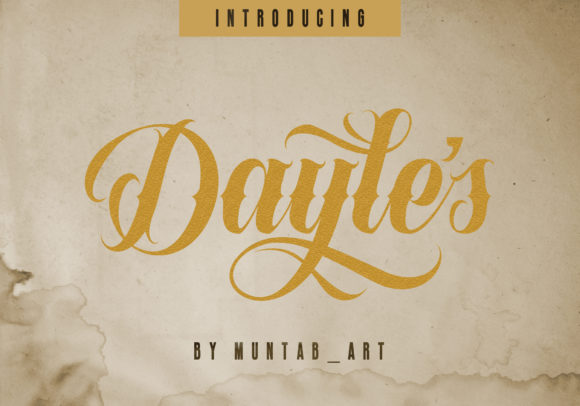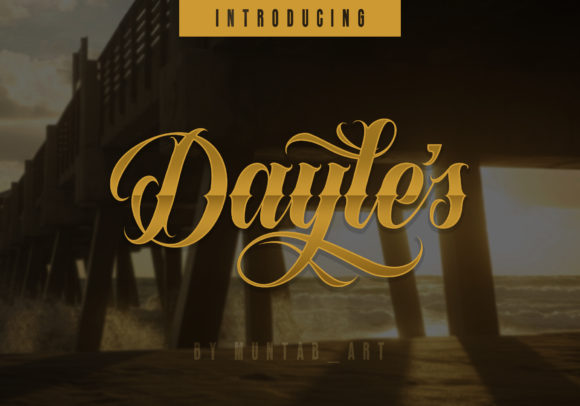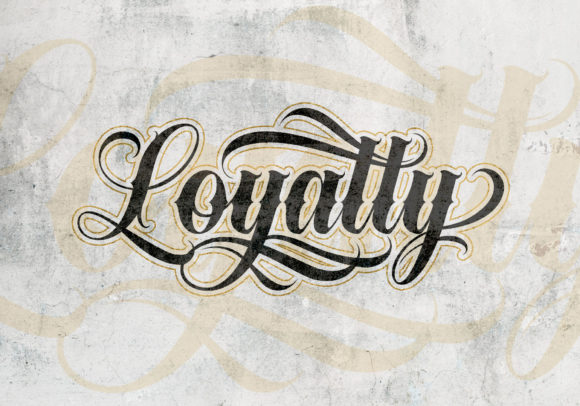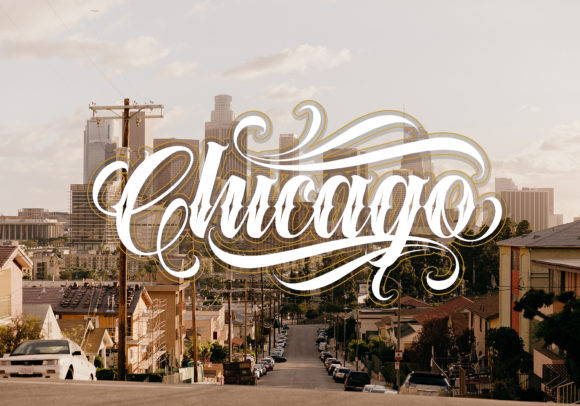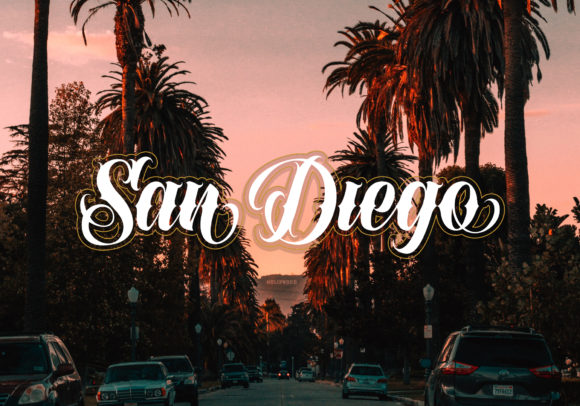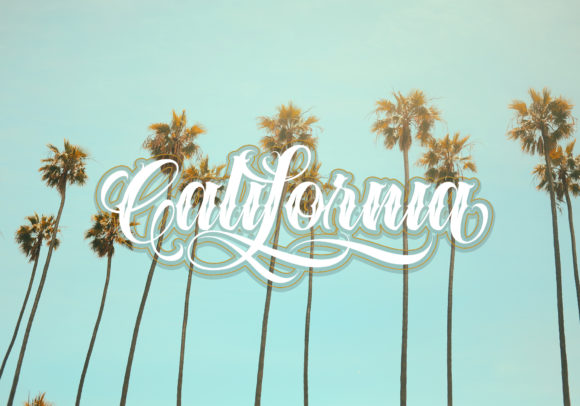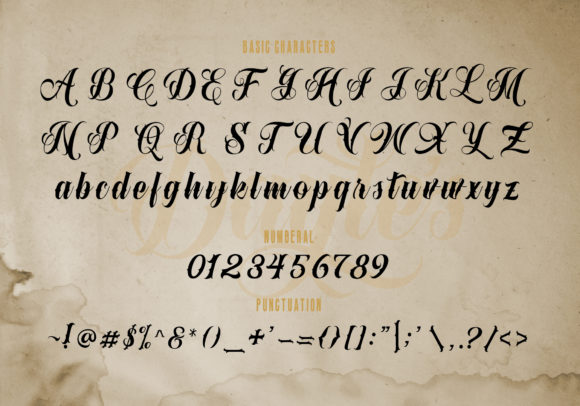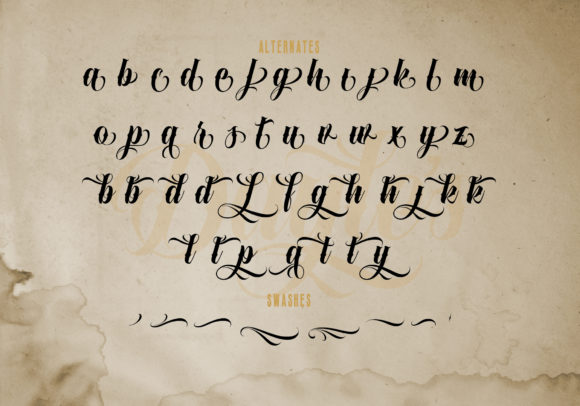
Dayles Font
About Dayles Font
Dayles is a beautiful and bold handwritten font with amazing elements. It will easily turn any design project into a stand out!